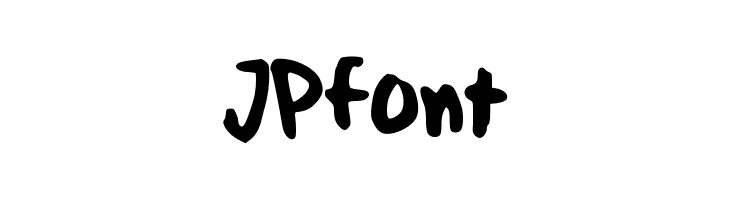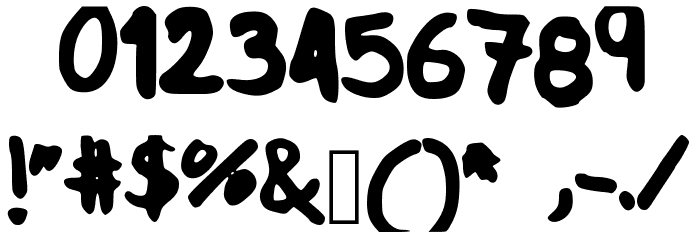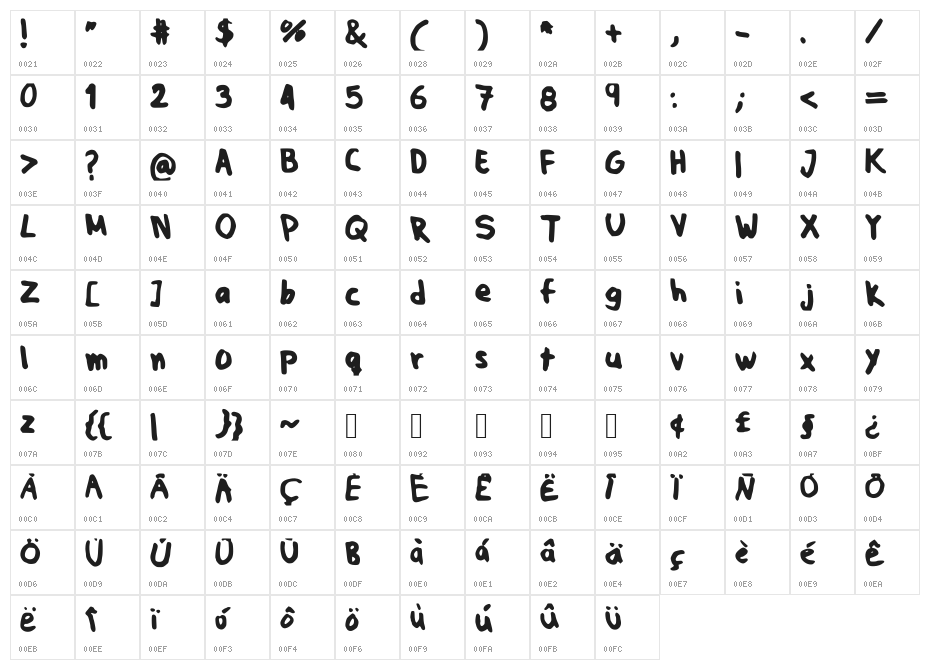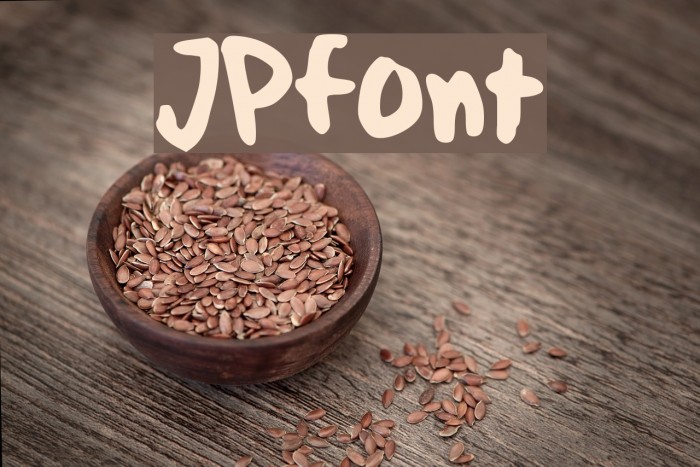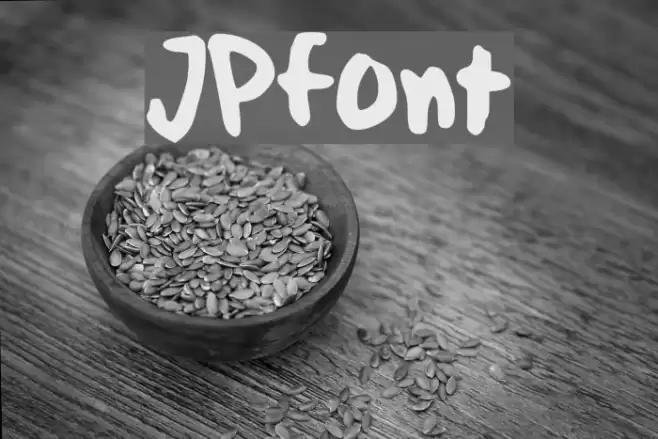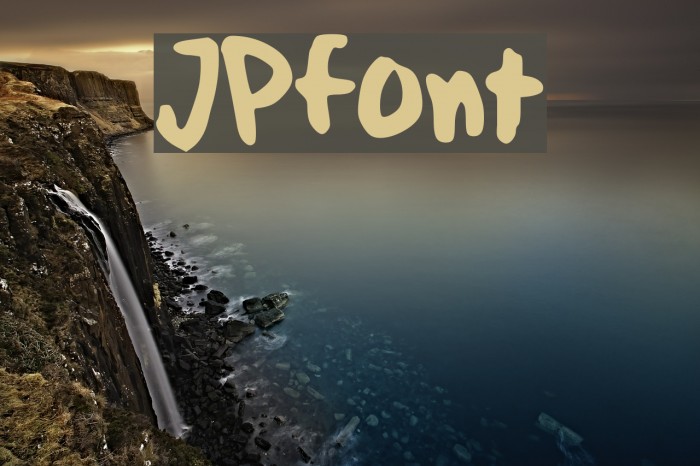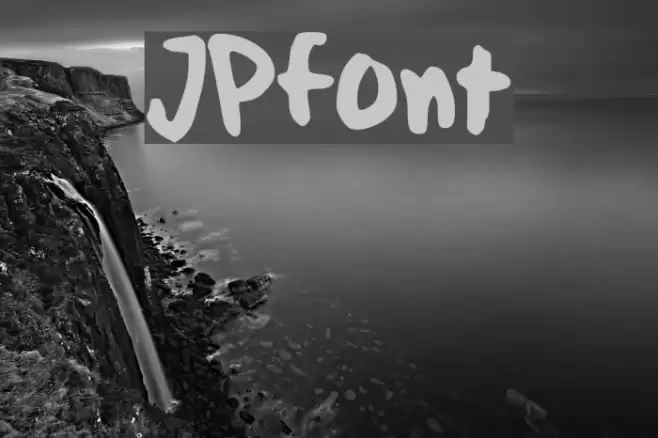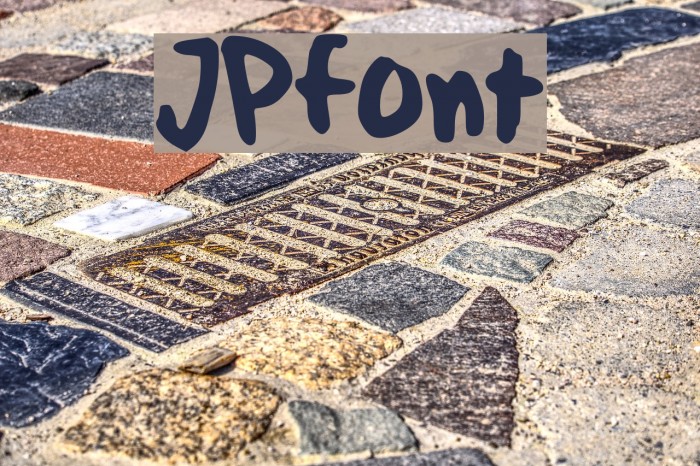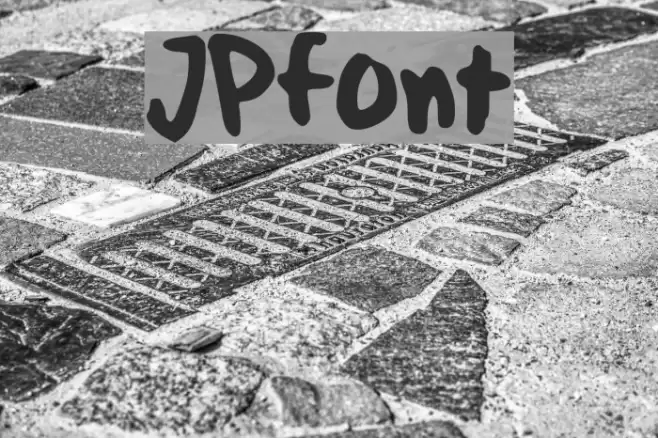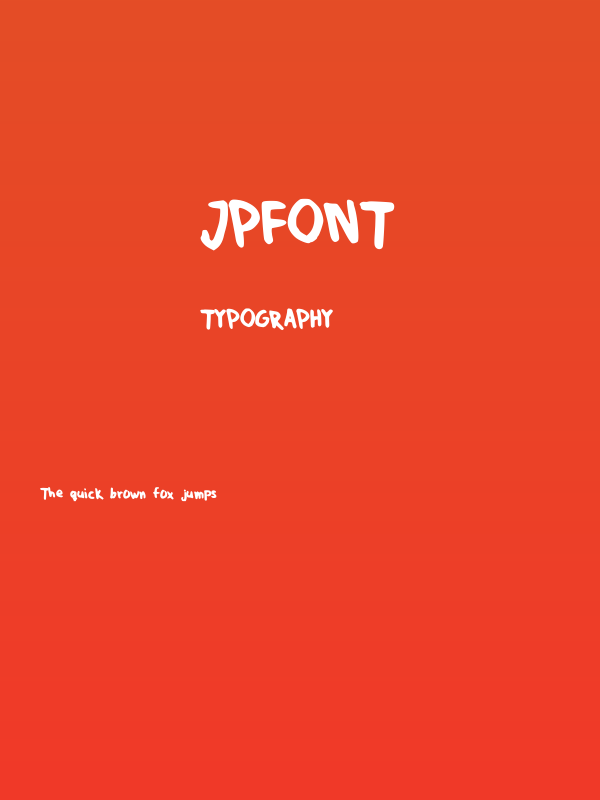
JPfont Font
JPfont Description
This font features a bold and playful handwritten style, characterized by its thick strokes and rounded edges. The letters are slightly irregular, giving it a casual and friendly appearance. The uppercase and lowercase letters maintain a consistent style, with the lowercase letters being slightly smaller and more compact. The numbers and special characters follow the same bold and playful design, ensuring a cohesive look across all characters. This font's informal and approachable style makes it suitable for projects that require a personal touch.
| Use Case | Headlines, Logos, Casual Text |
| Proposed Projects | Ideal for children's books, playful branding, casual invitations, and social media graphics. |